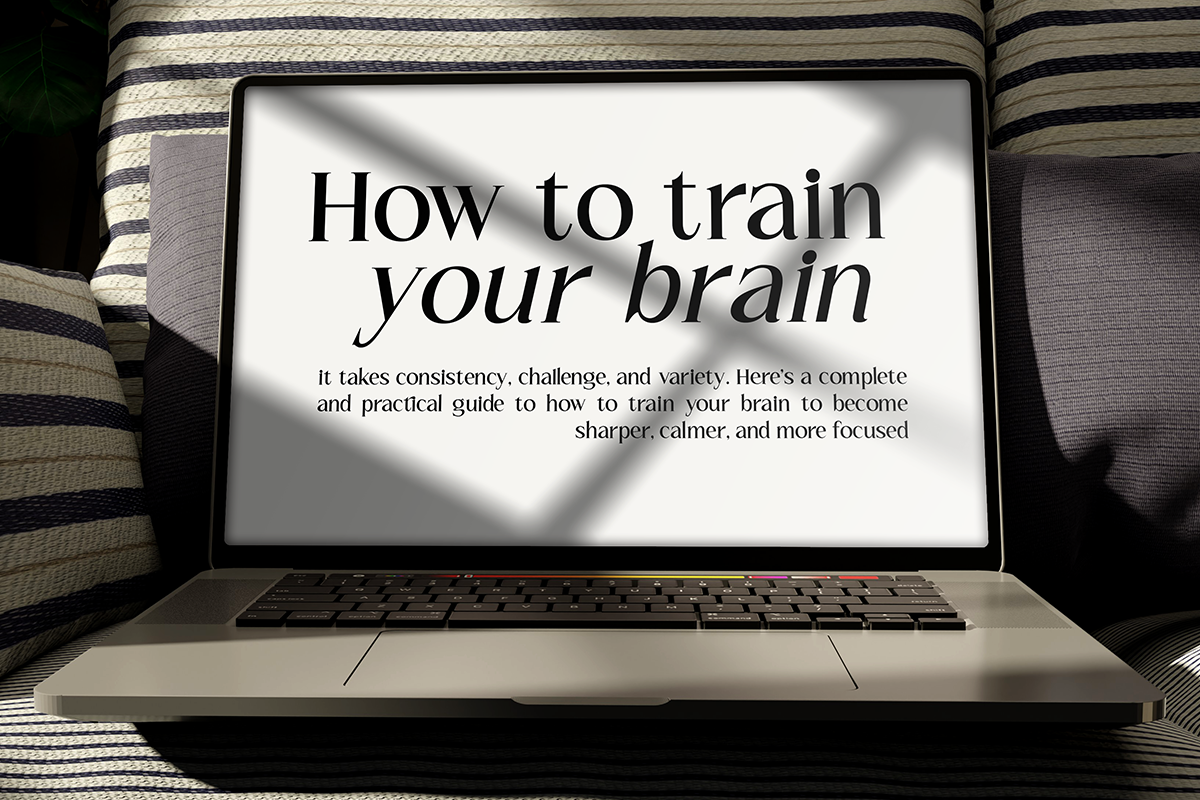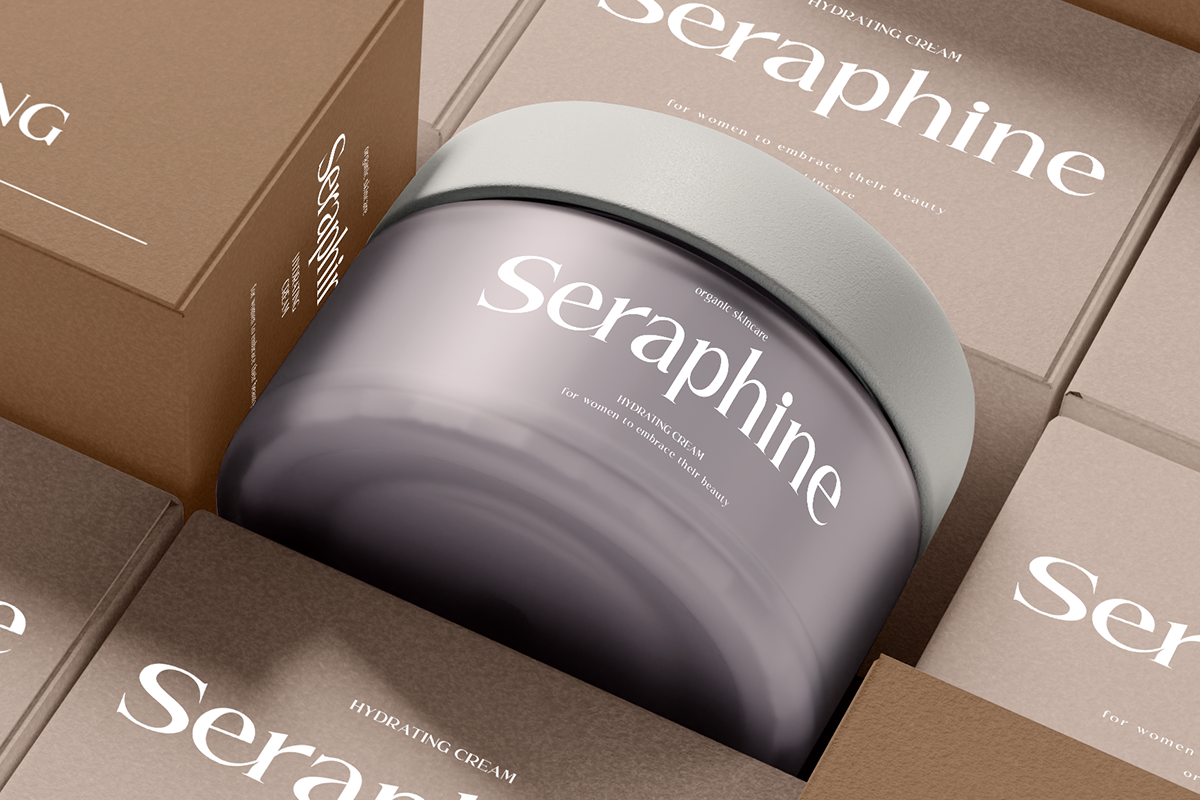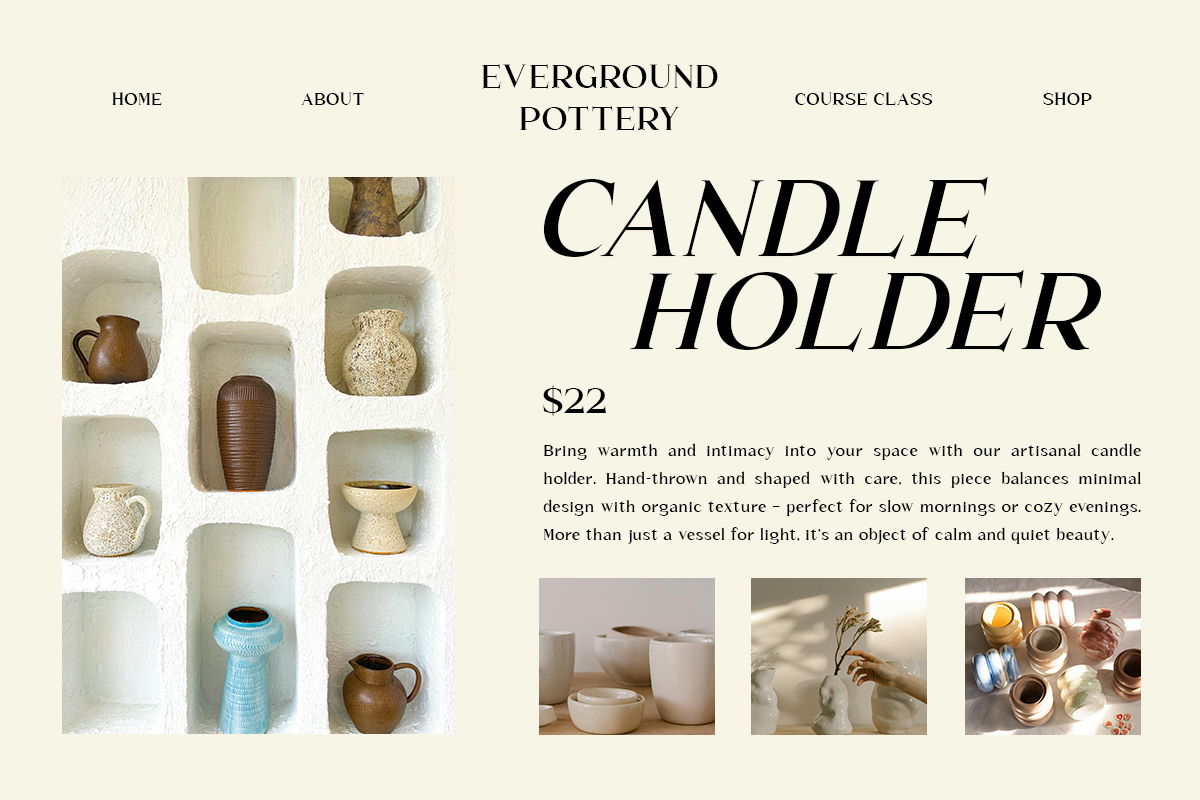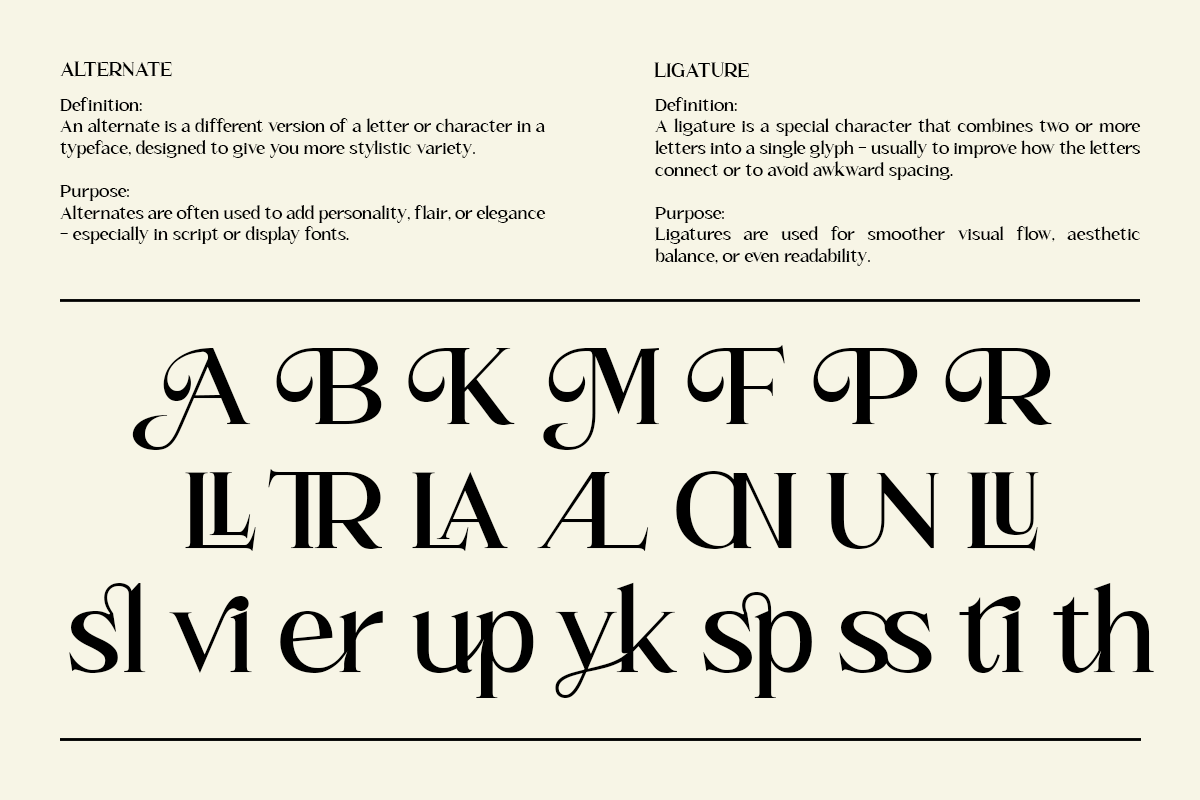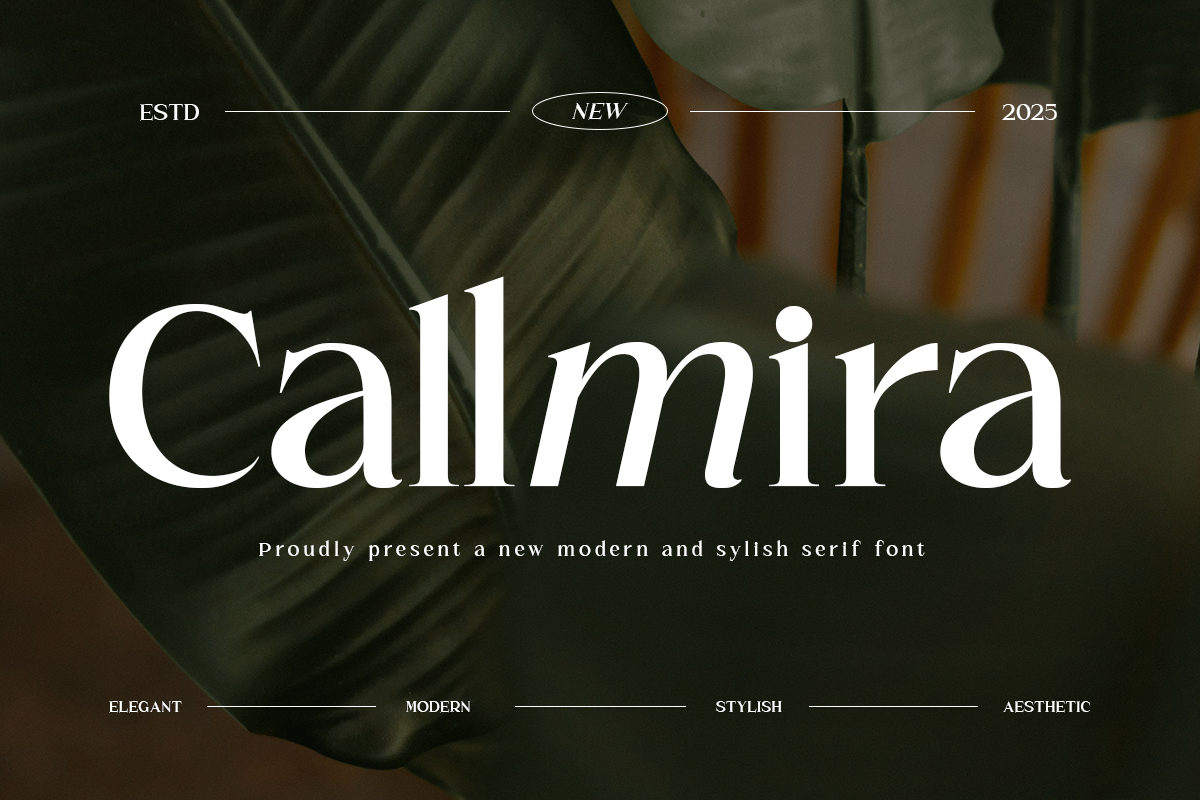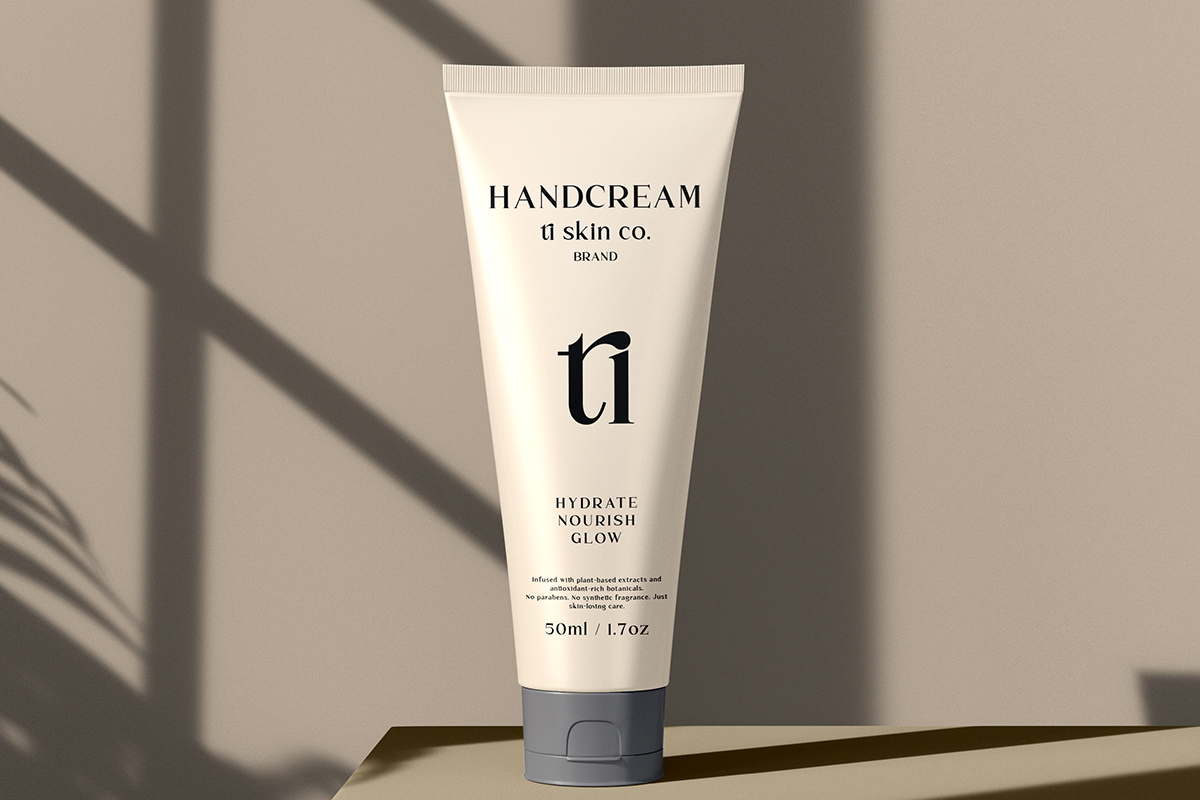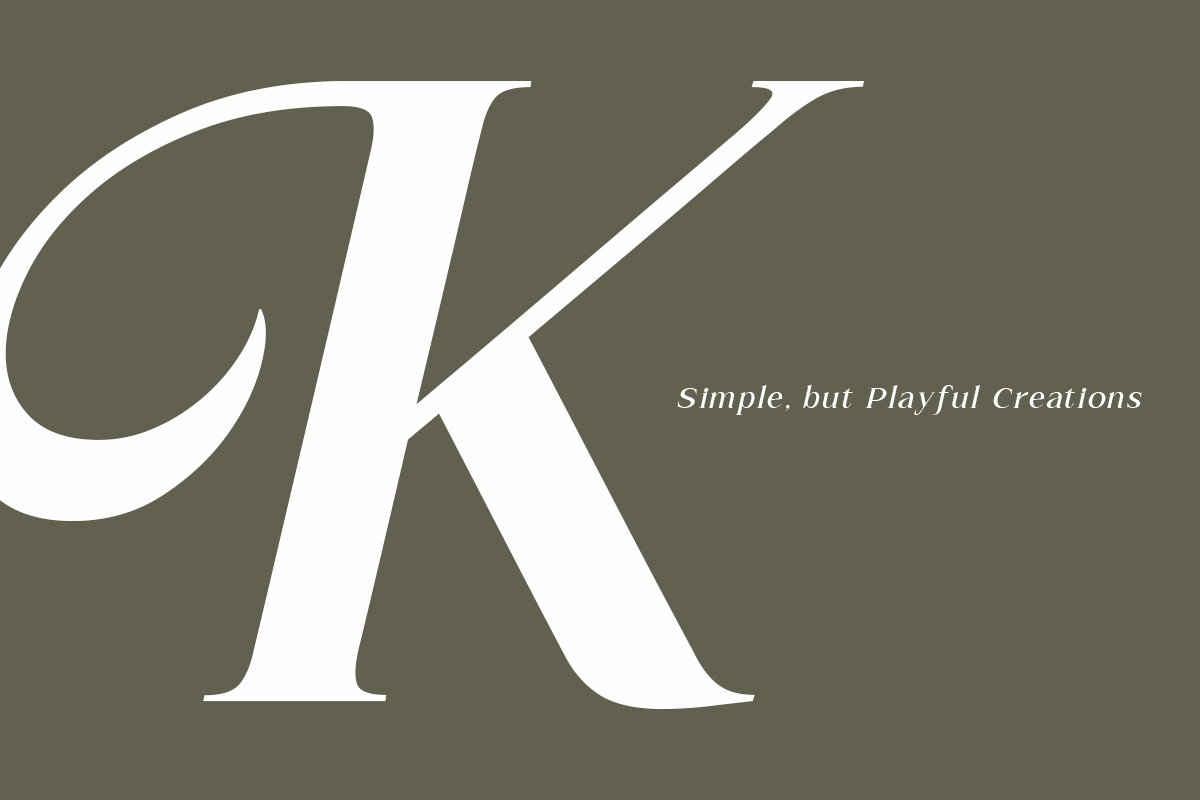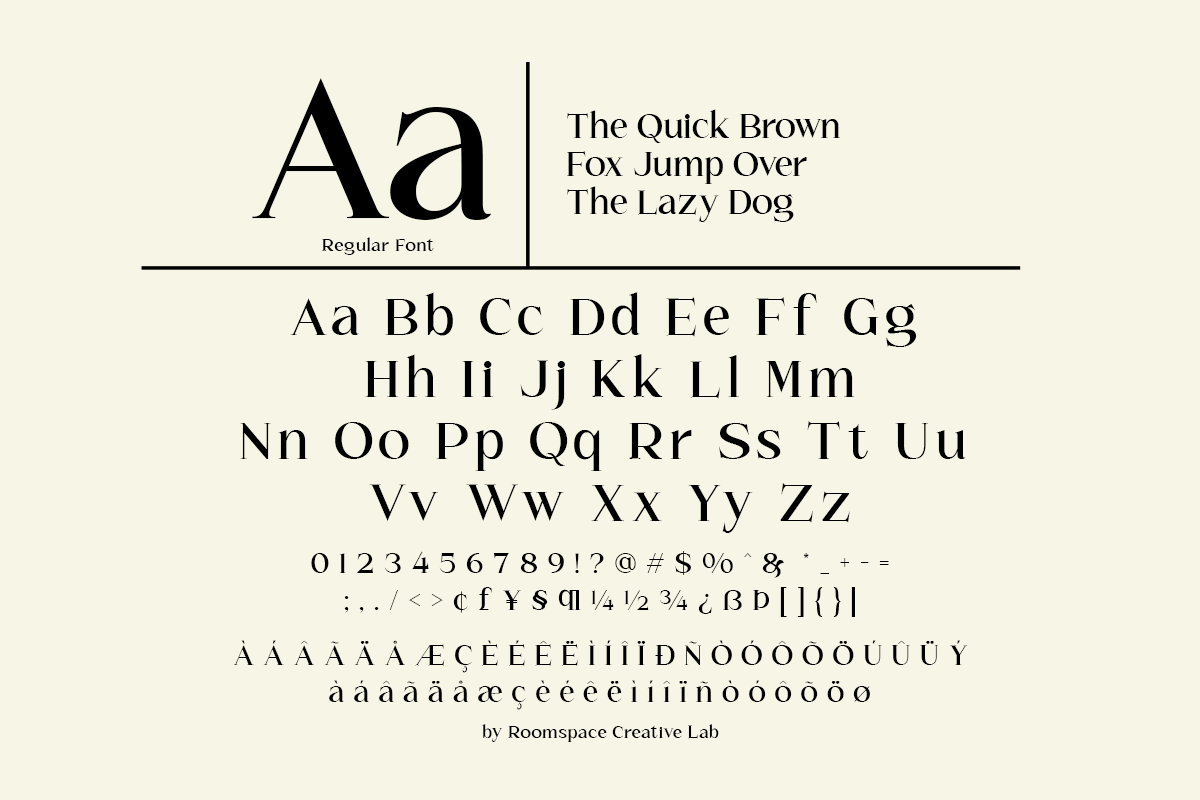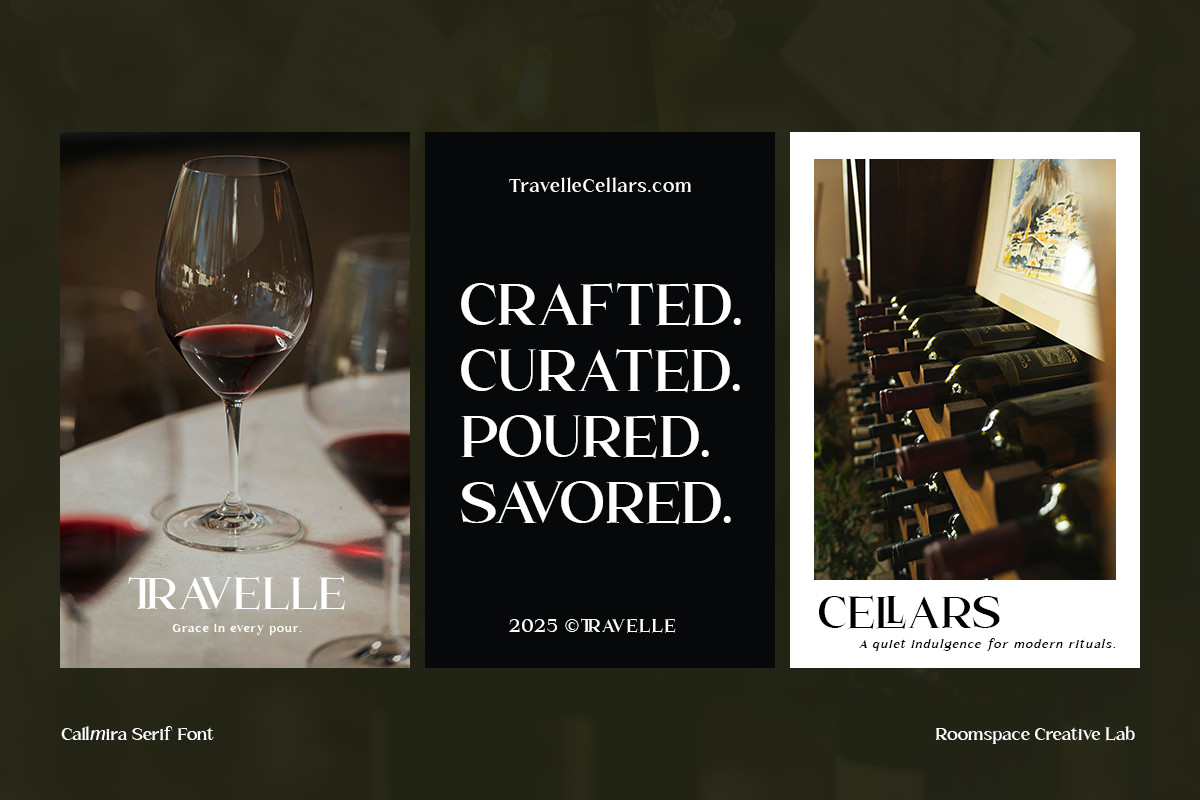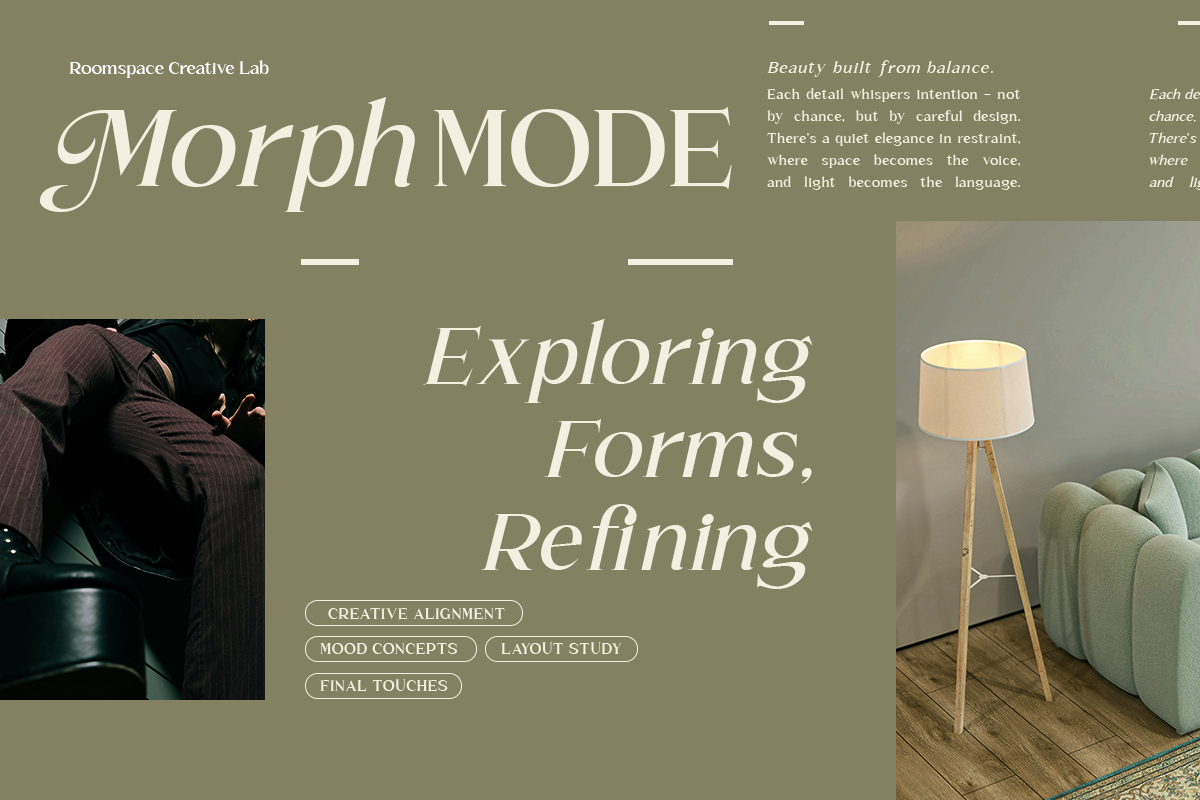
Callmira - Corporate Elegant Font
Callmira is a modern elegant serif font crafted for designers and brands who seek sophistication. Its sleek curves and refined letterforms bring a luxury touch to any project—perfect for high-end logos, fashion branding, packaging, and editorial layouts. Callmira’s clean yet stylish look makes it versatile for professional presentations or social media posts that demand a premium feel. Elevate your designs effortlessly with this timeless serif.